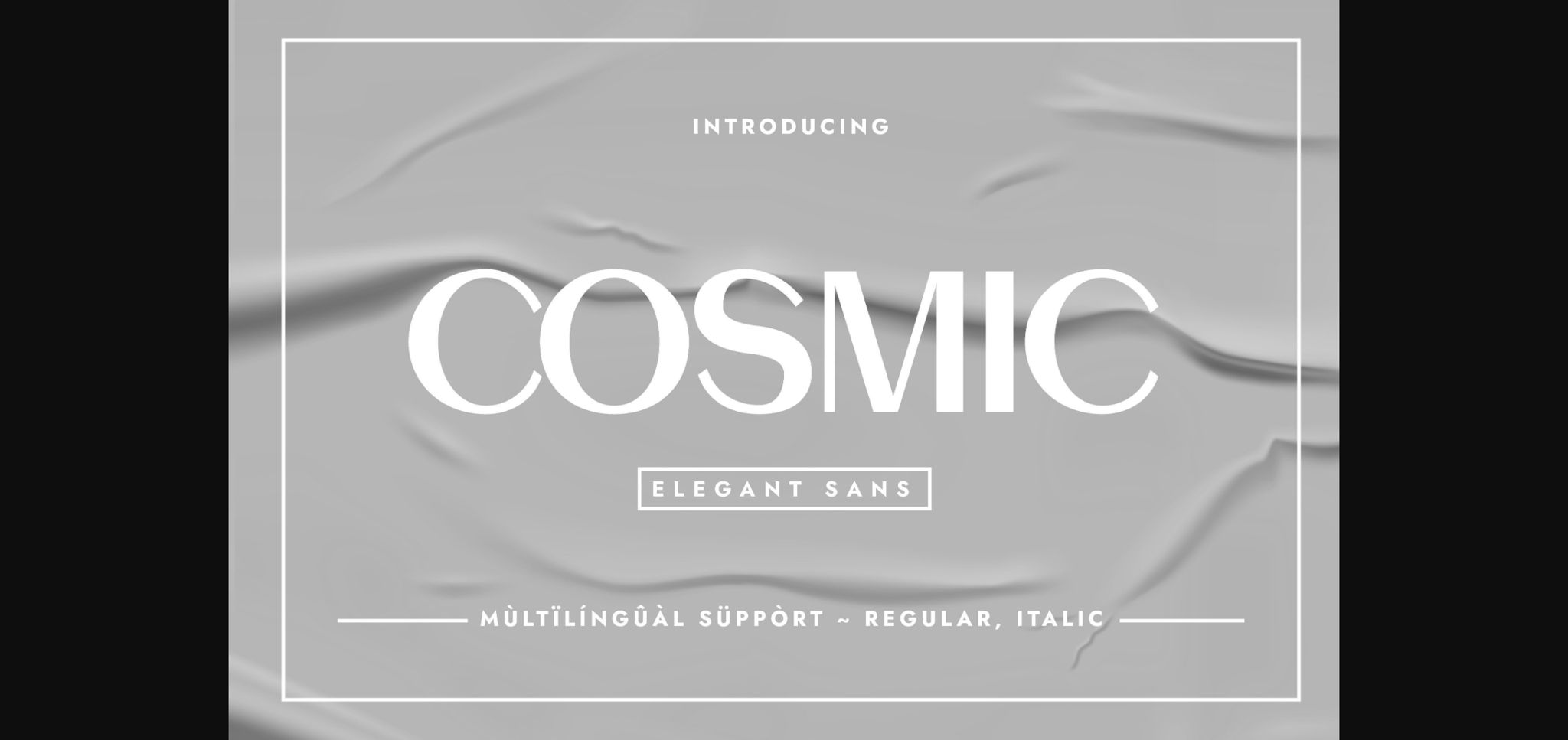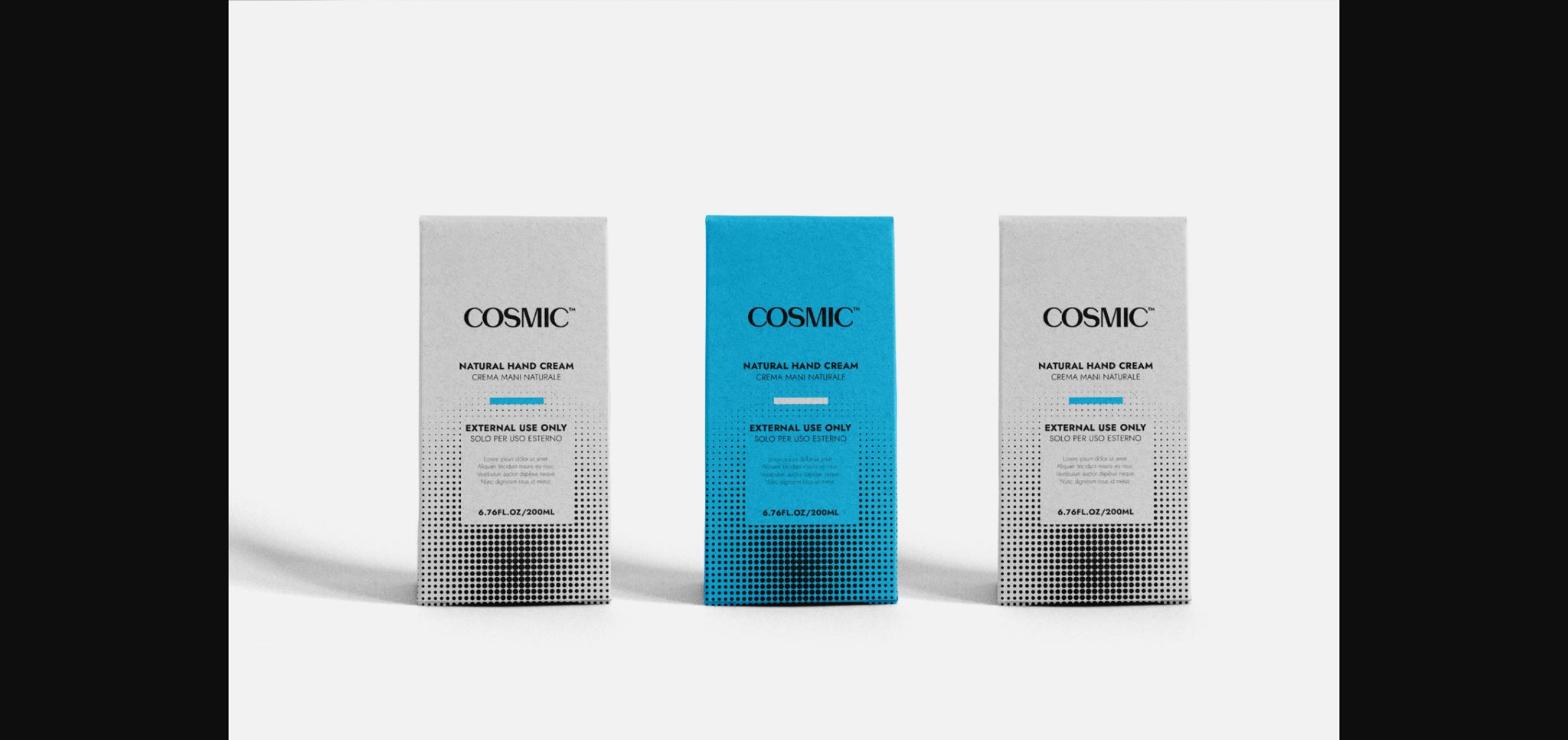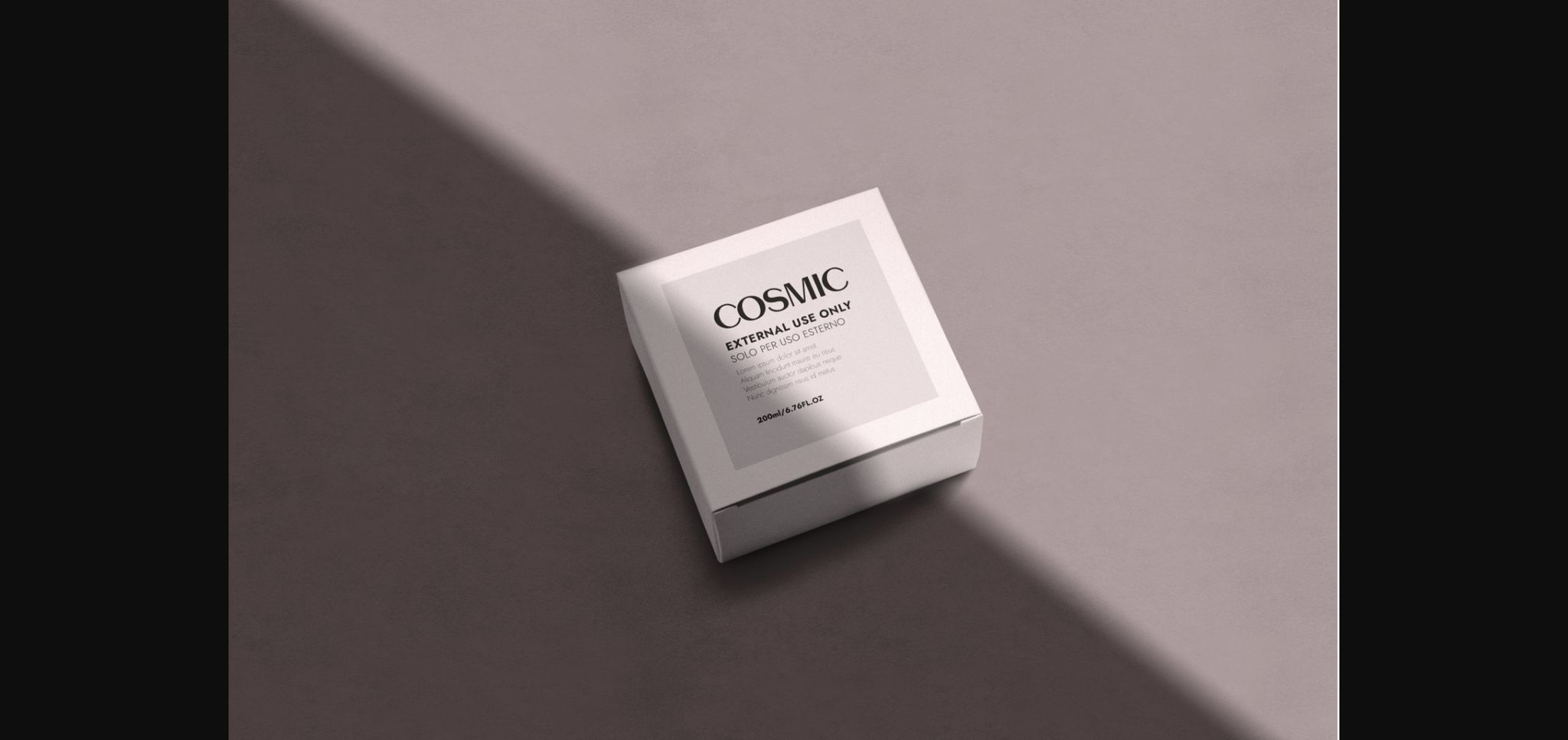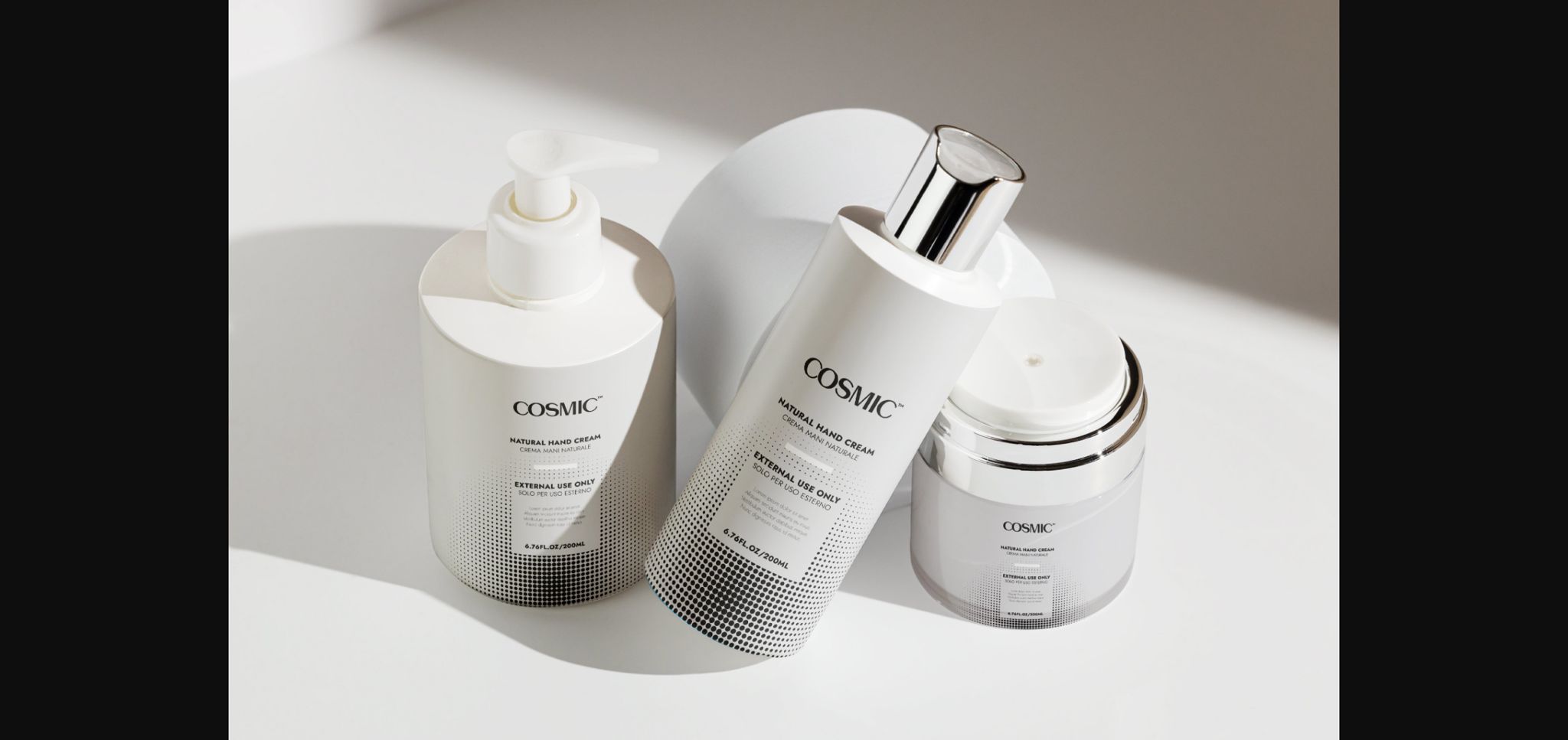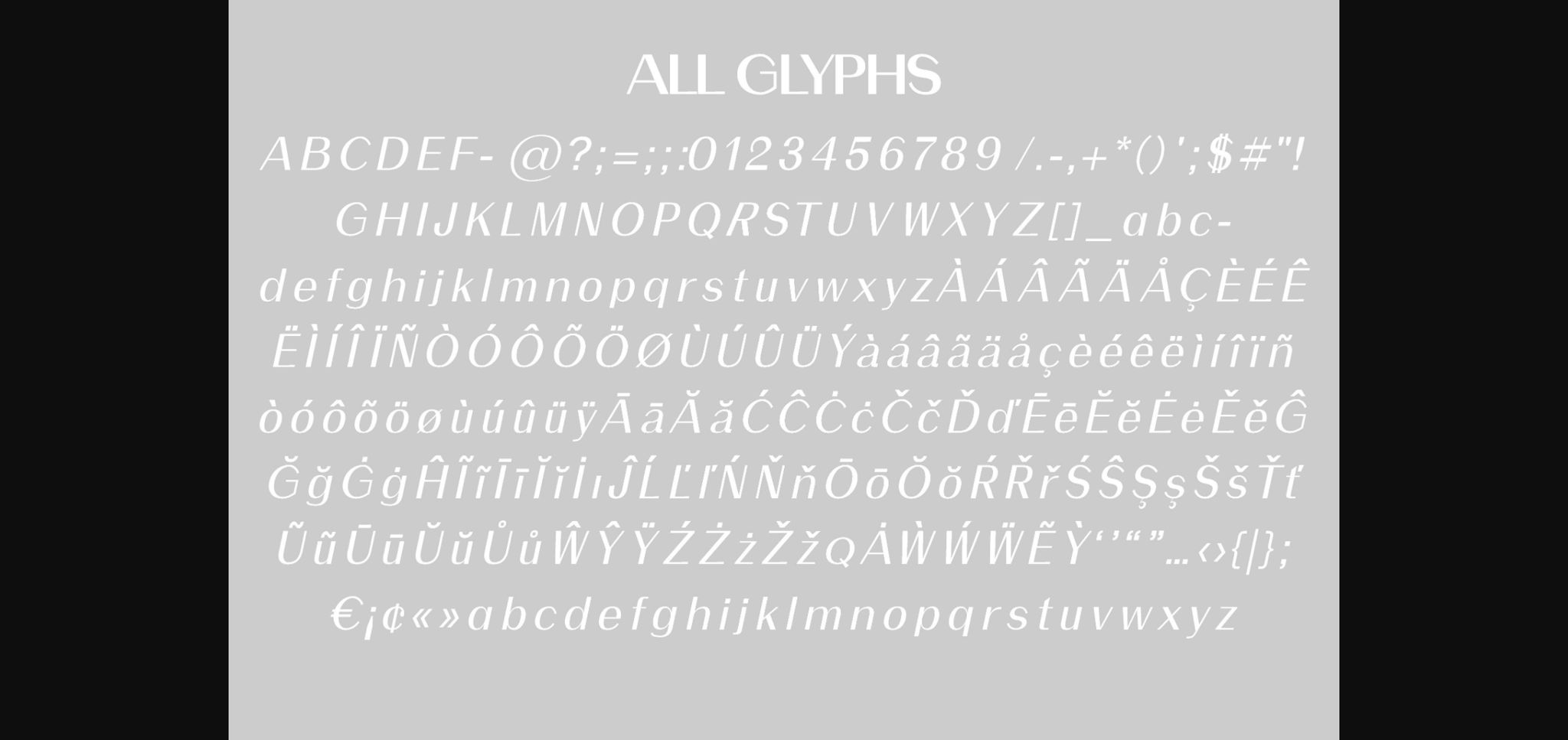
About Cosmic Font
Cosmic is an elegant clean sans serif typeface. As the name suggests it was thought to target designing minimalistic perfume labels or cosmetics packaging, however, it can fit other elegant themes such as invitations, weddings, fashion design, menus, etc. Use it in your creations so you can see how it can be easy to have great results with minimal effort.